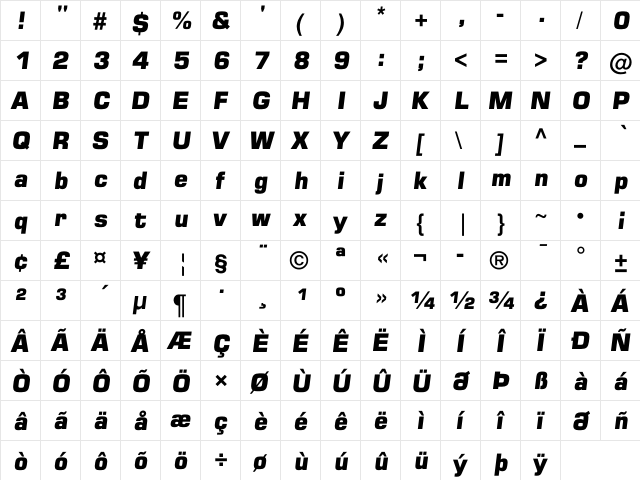
LHF Square Block Italic
| Foundry | John Studden for Letterhead Fonts |
Design Context for LHF Square Block Typeface
LHF Square Block is a composed and adaptable typeface that performs quietly and consistently across a wide range of design contexts. The slanted form adds forward momentum and visual energy.
Pro Tip: Use LHF Square Block for emphasis, pull quotes, and subheadings where its slanted energy can add rhythm to the layout.